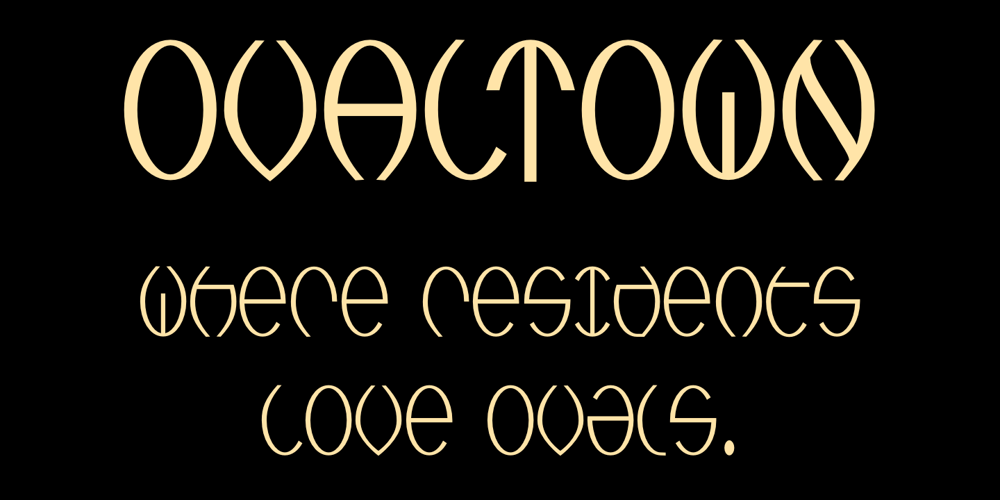
Ovaltown
Ovaltown font
Ovaltown Font Family was designed by Robert Schenk and published by Ingrimayne Type. Ovaltown contains 3 styles and family package options. Ovaltown is a geometric font family with three weights in which the letters are derived from ovals or ellipses. It does to have true lower-case letters but many of the characters in the lower-case slots differ from the corresponding characters in the upper-case slots. Ovaltown is strange, unusual, and bizarre and can be useful when one wants strange, unusual, and bizarre lettering.